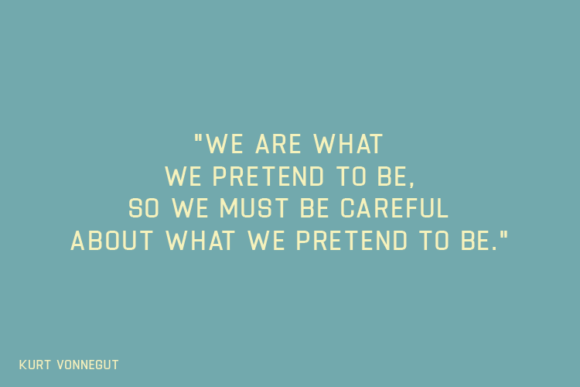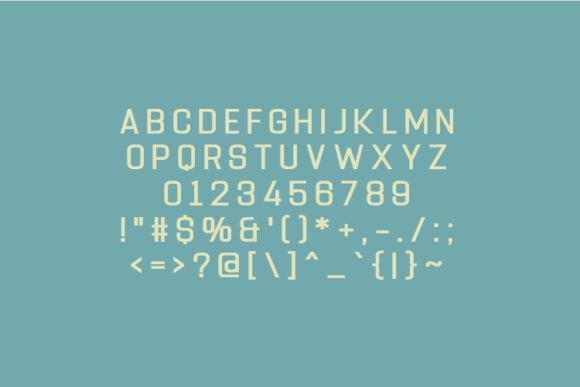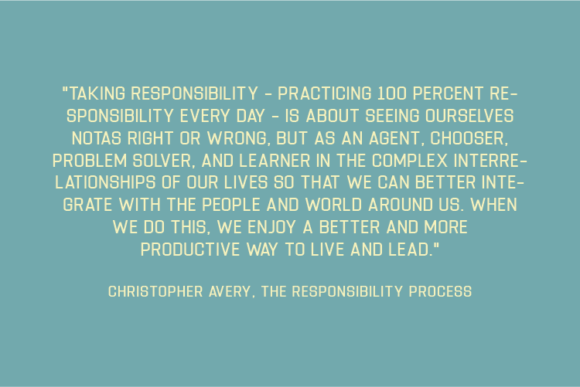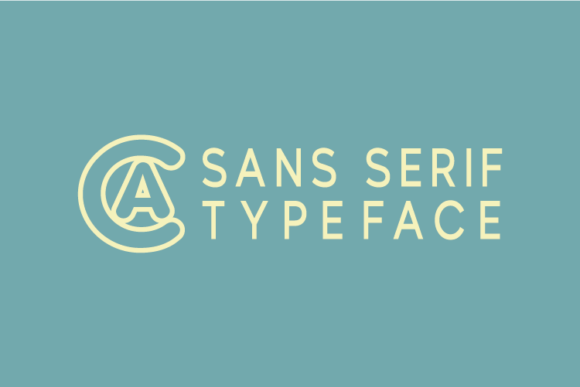
Introduction to Beauty Summer Font Font
Fonts play a crucial role in design, and the Beauty Summer Font font is a typeface that brings both character and versatility to any project. Whether you’re working on a branding project, a website, or a print design, the Beauty Summer Font font offers a unique style that can elevate your work.
Beauty Summer is a modern, classy sans serif typeface.
Extremely versatile, this typeface is perfect for logos, weddings, invitations, quotes, advertisements, print, magazines, and more .
Key Features of Beauty Summer Font Font
Why Choose Beauty Summer Font Font?
The Beauty Summer Font font is more than just a typeface – it’s a design tool that helps you communicate your message with style and clarity. Its unique character set and versatile design make it suitable for a wide range of applications, from elegant invitations to bold headlines.
With its carefully crafted letterforms and balanced proportions, the Beauty Summer Font font ensures readability and visual appeal across all mediums.
What makes Beauty Summer Font font special?
The Beauty Summer Font font stands out with its unique design, exceptional readability, and versatility across various design applications.